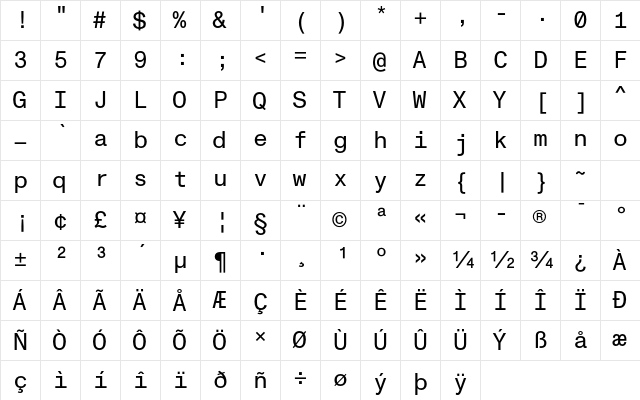
Monument Grotesk Mono Cd Regular Free Font
Monument Grotesk Mono Cd Regular
Foundry: Dinamo
Designer: Larissa Kasper, Rosario Florio, Dinamo
Design Context for Monument Grotesk Mono Cd
Monument Grotesk Mono Cd uses fixed-width spacing throughout, giving it the structured, systematic character associated with coding environments and technical documentation.
Pro Tip: Use Monument Grotesk Mono Cd with slightly increased line-height for extended reading - fixed-width spacing can feel dense in longer passages without extra breathing room.